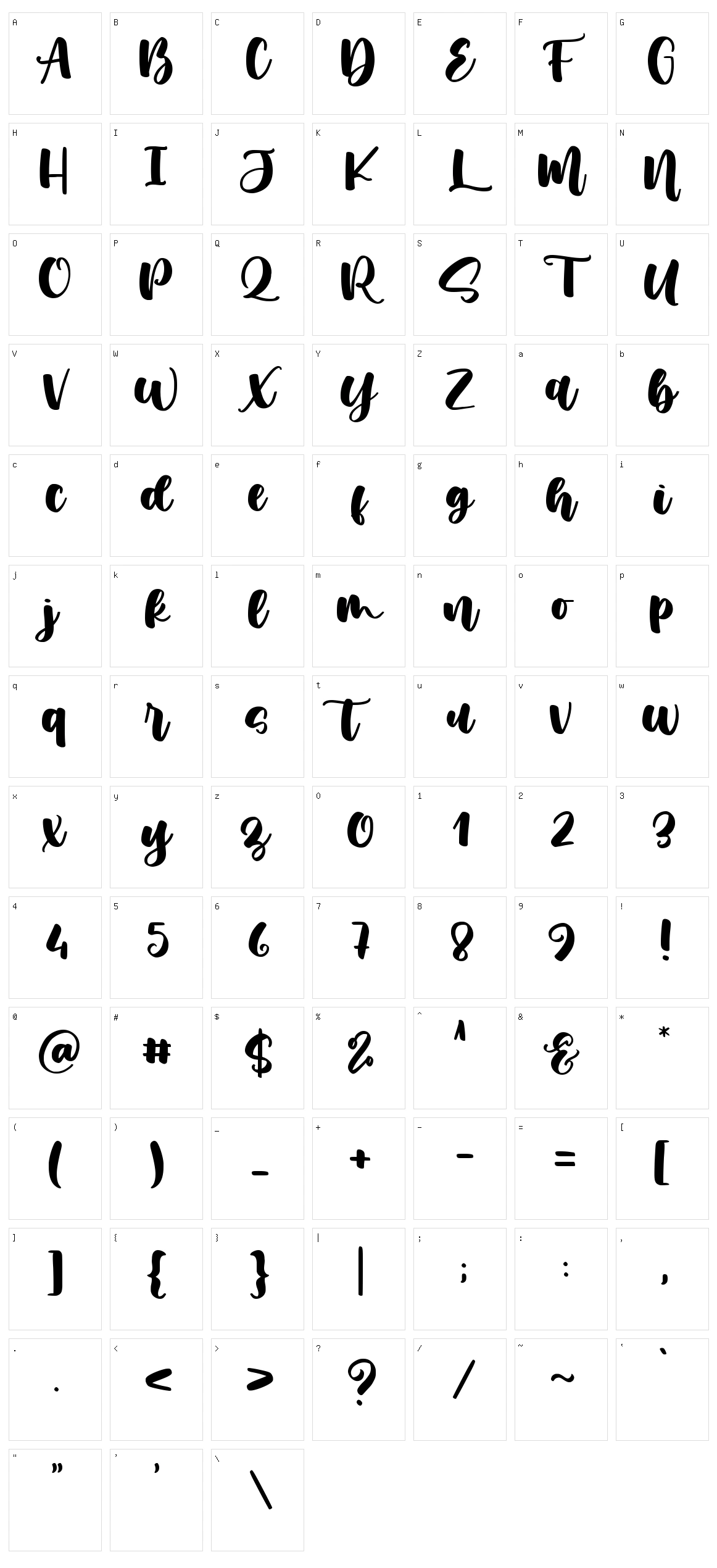
The free font Muthiara is carefully designed by Abo Daniel Studio, showcasing a thoughtful balance of creativity and usability and falls under the Script font style. When you download the ZIP file, it contains only 1194.3 KB of font files, making it lightweight and quick to download. Please review the license details below to understand permitted usage and distribution rights. If license information is not available, we recommend using this font for personal projects only or contacting the author directly for commercial usage permissions.
MUTHIARA
- modern calligraphy font -